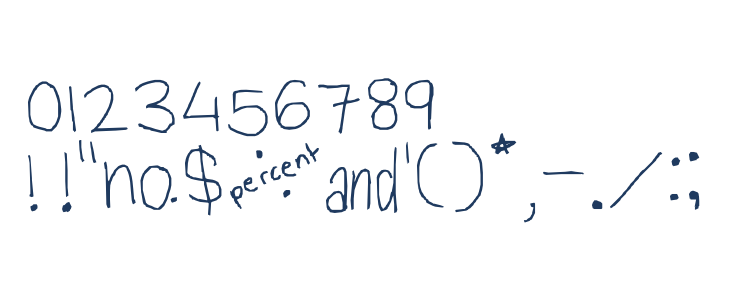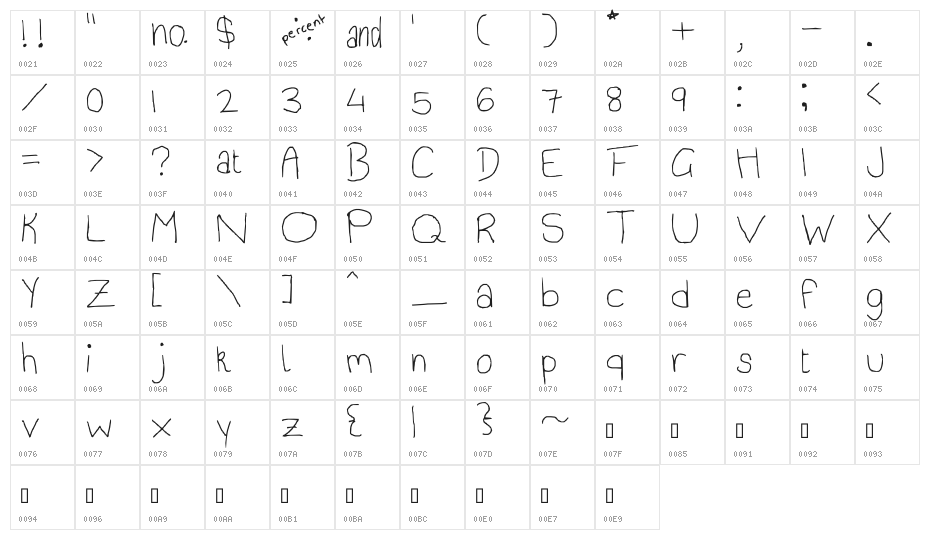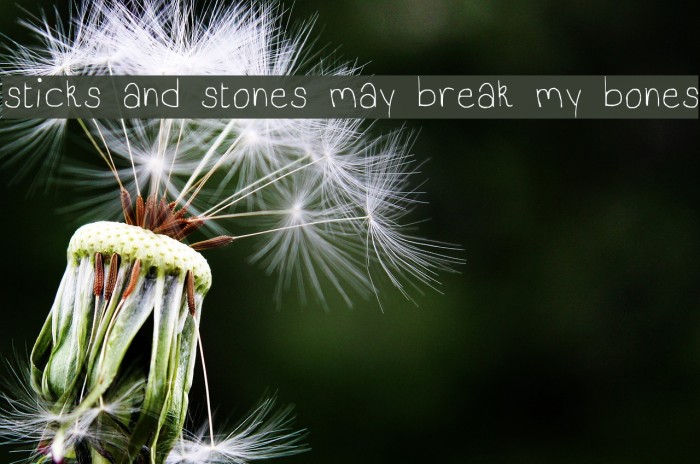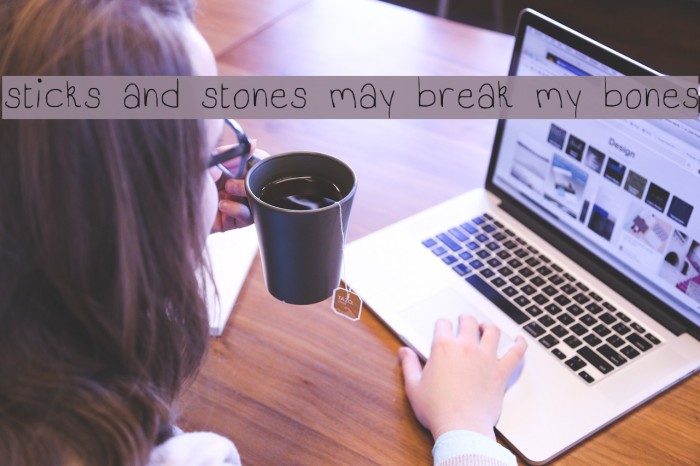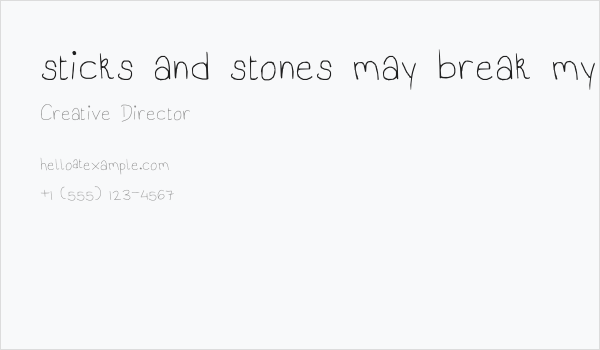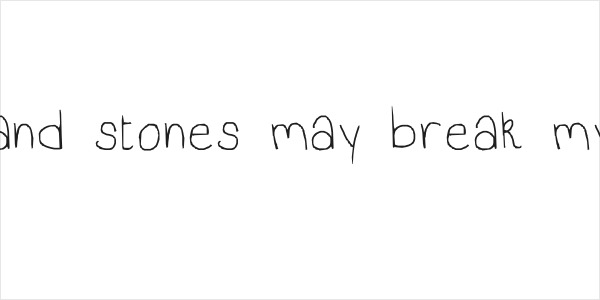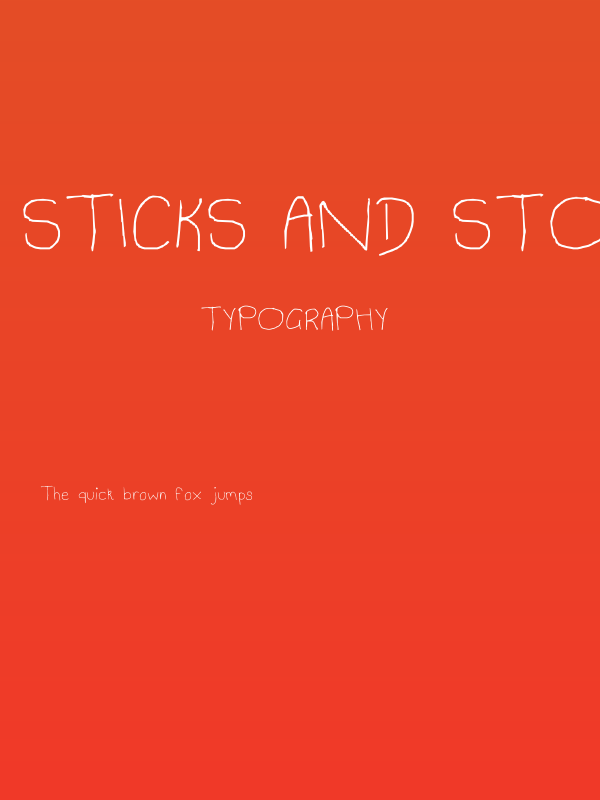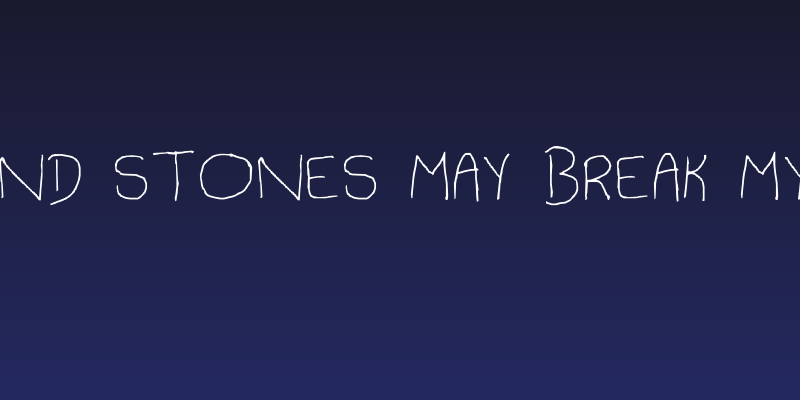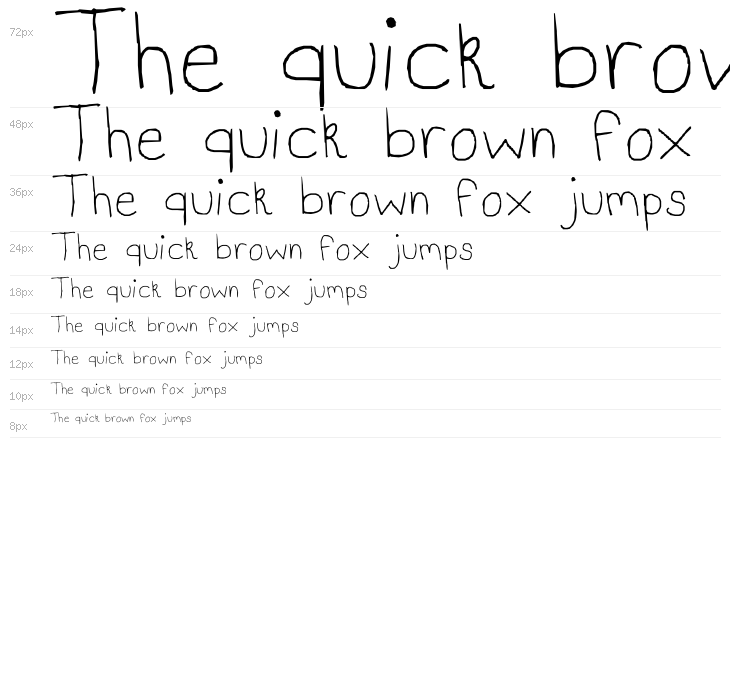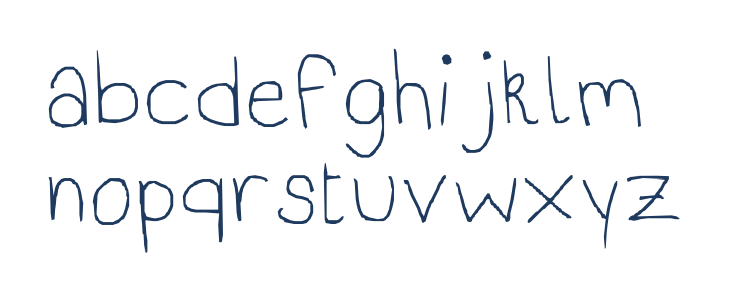
sticks and stones may break my bones Font
sticks and stones may break my bones Description
This font features a playful, hand-drawn style with irregular strokes and a casual appearance. The letters are unevenly weighted, giving them a whimsical and informal look. The uppercase and lowercase characters maintain a consistent style, with rounded edges and slightly exaggerated curves. The numbers and special characters follow the same playful design, adding to the font's overall charm. This font is ideal for projects that require a personal touch or a sense of fun and creativity. Its unique style makes it stand out, while still being legible and versatile.
| Overall Style | Playful, Casual |
| Proposed Projects | Ideal for children's books, greeting cards, playful branding, and creative projects. |